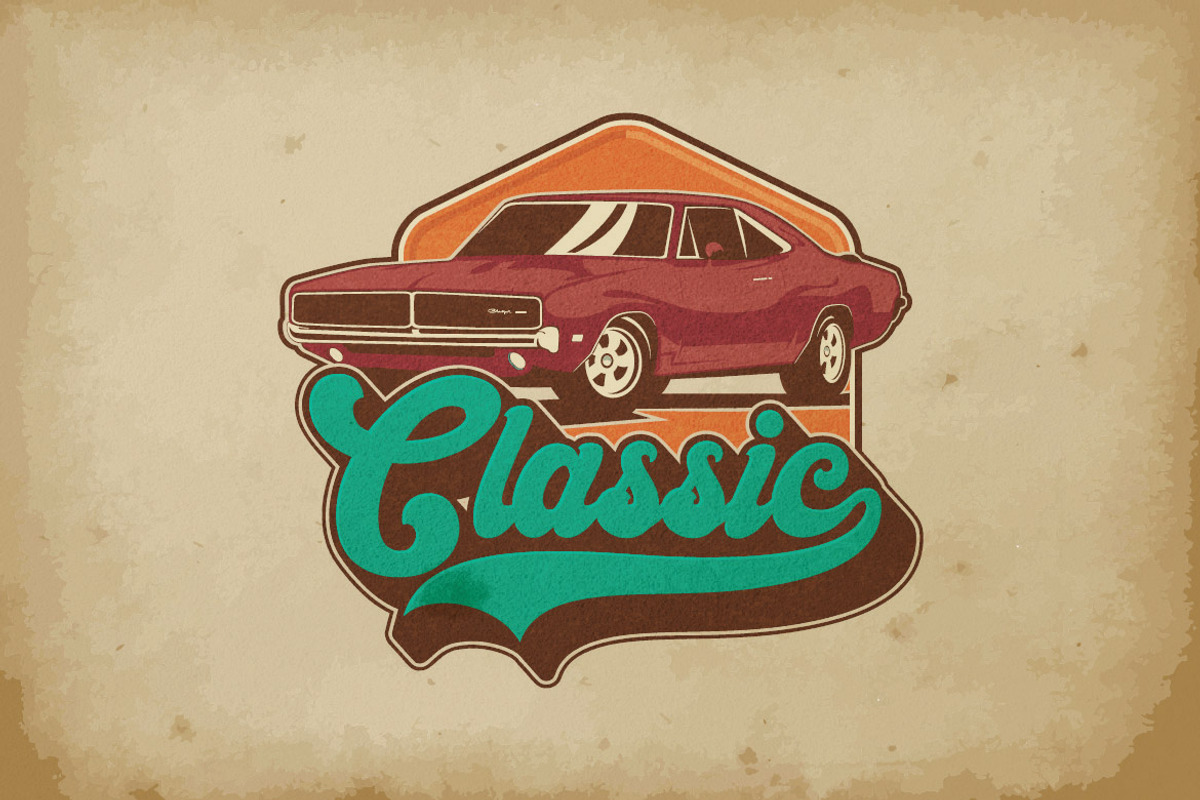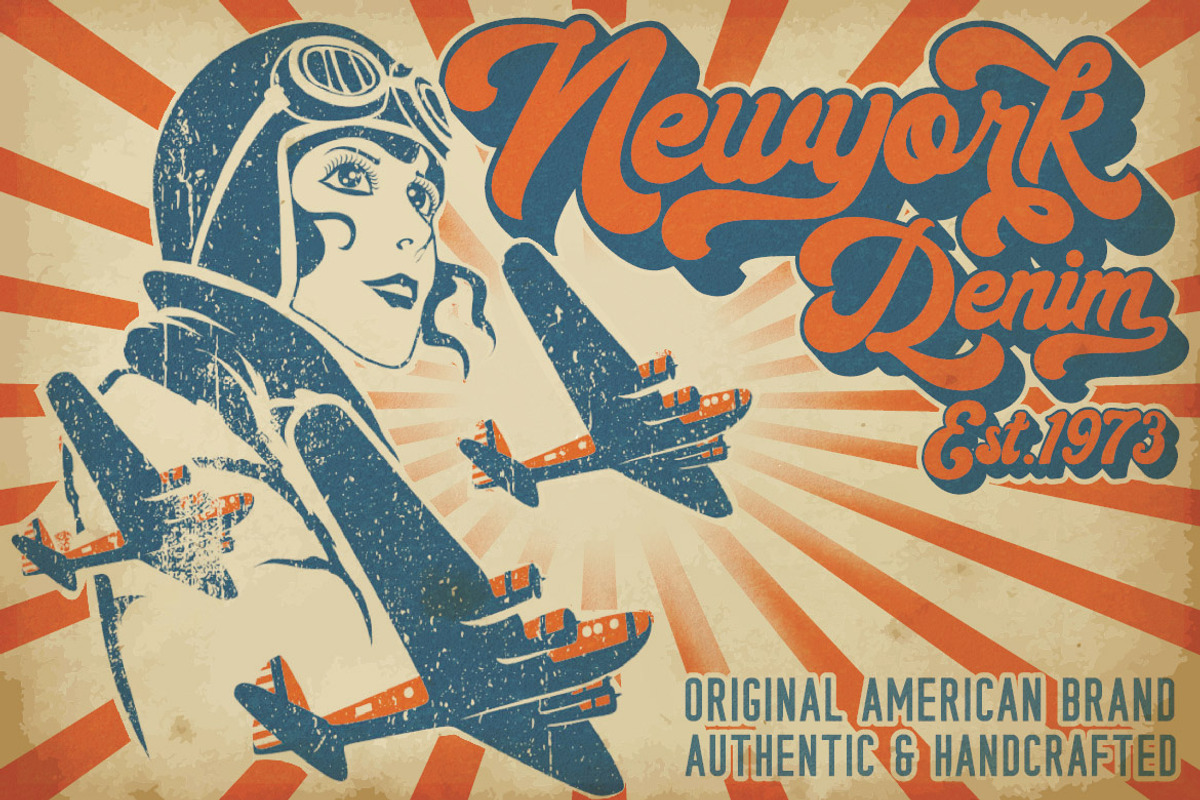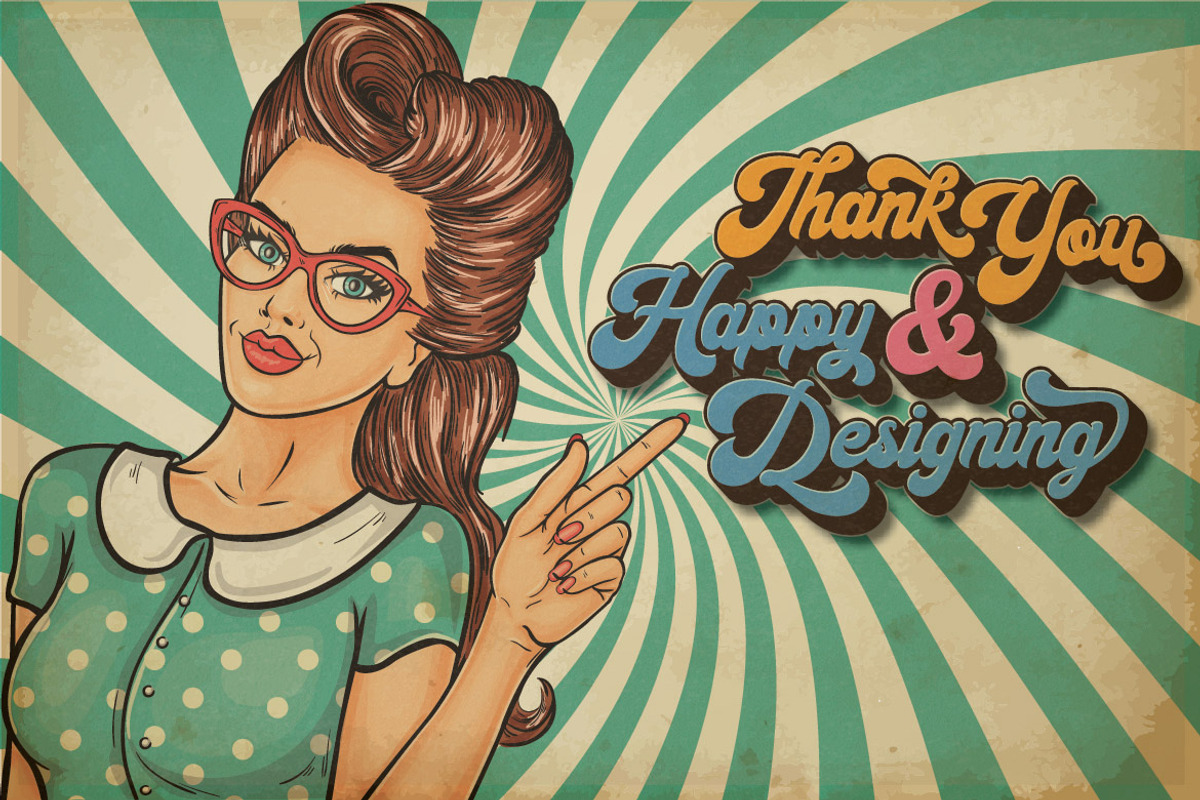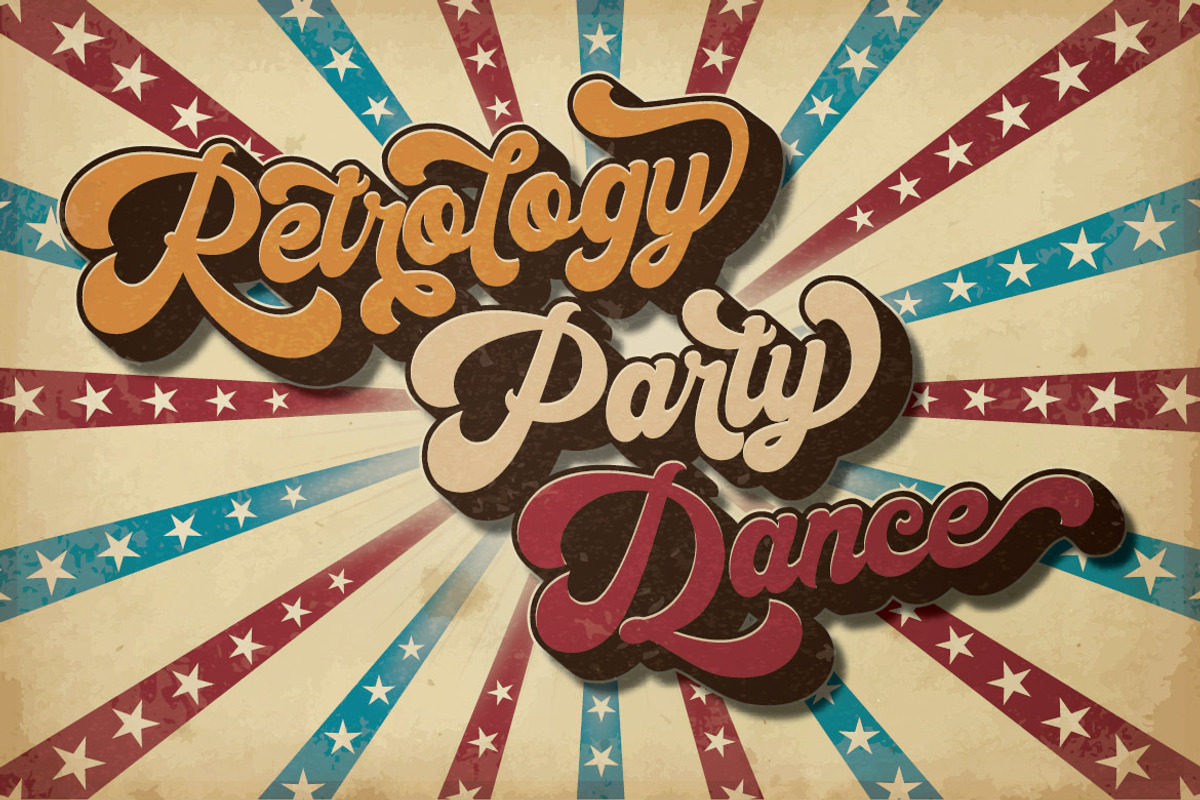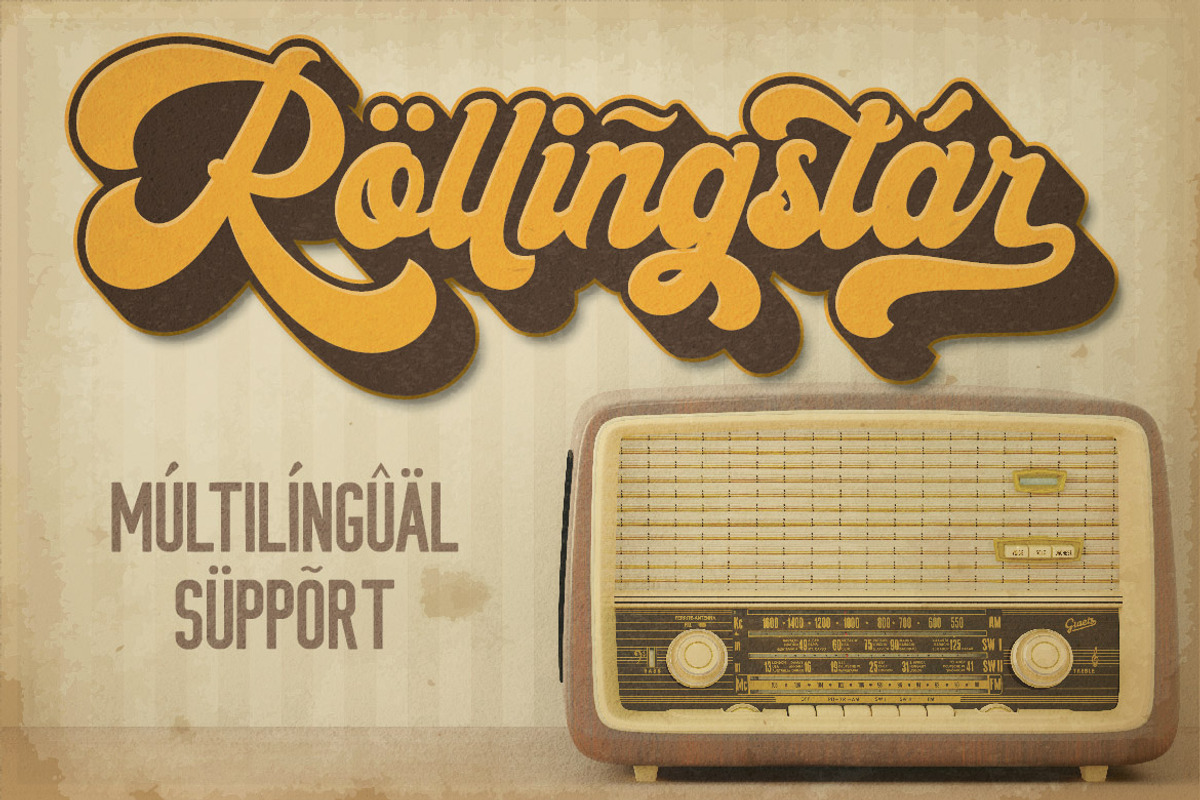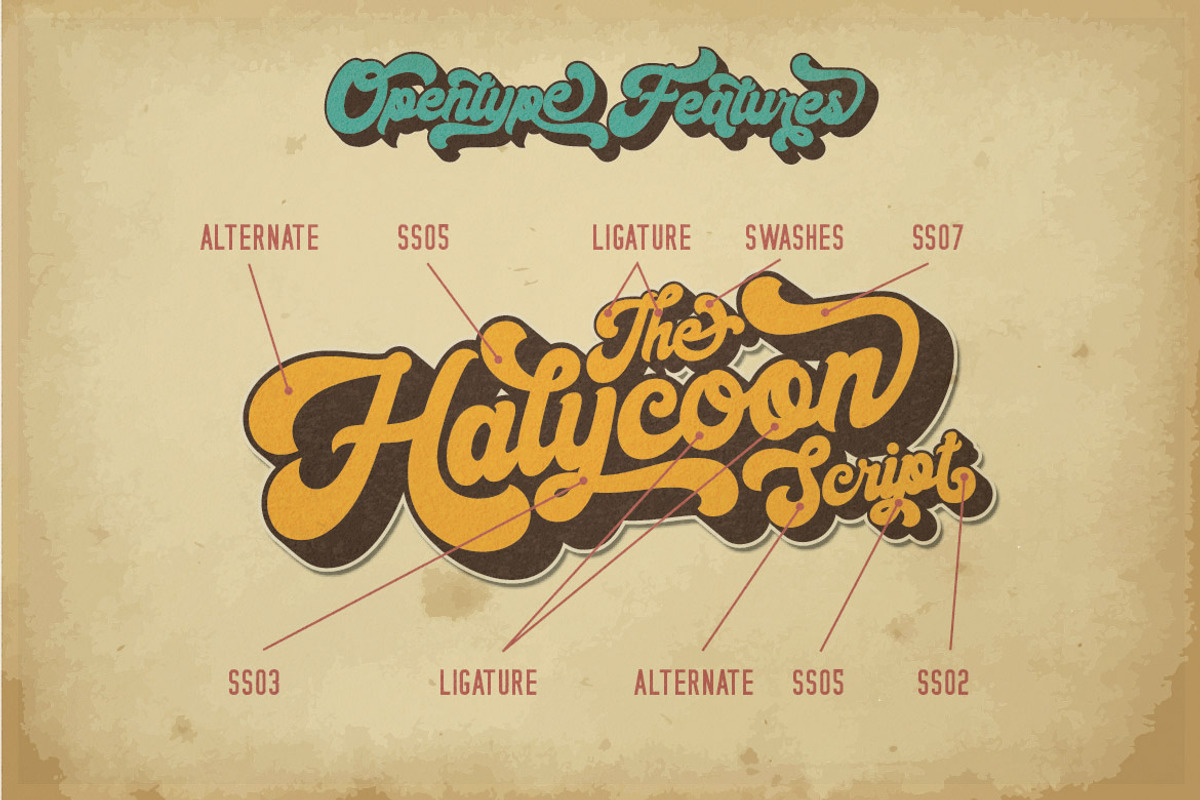
Halycoon | Retro Bold Script
Halycoon script is one of my bold retro script fonts, comes with Extruded and outline Font versions. So you don't need extra effort to create extrude and outline effects. Its features include: Stylistic Alternate, Swash, Ligatures, Stylistic set and multilingual support. You can choose alternatives for substitution with various variants with a total of 578 Glyphs. Very suitable for logos, tshirts, posters, branding, etc.
- Opentype Features